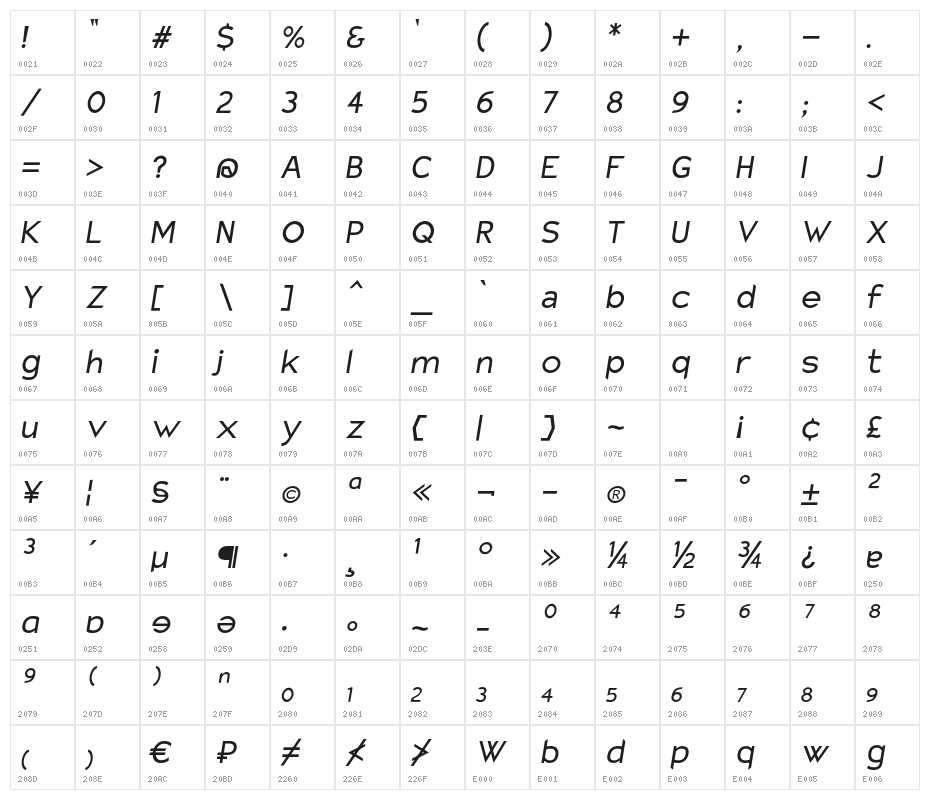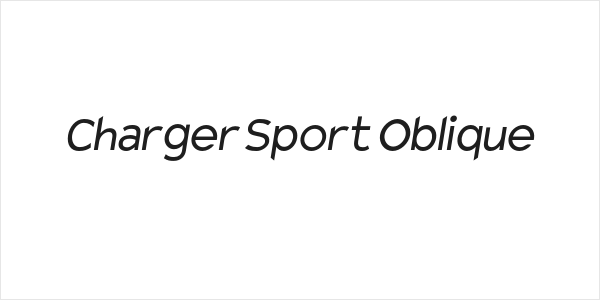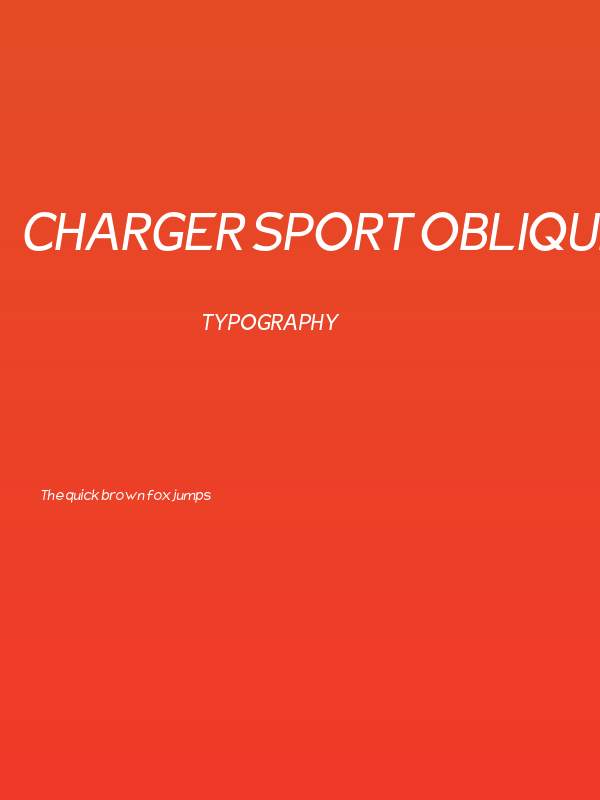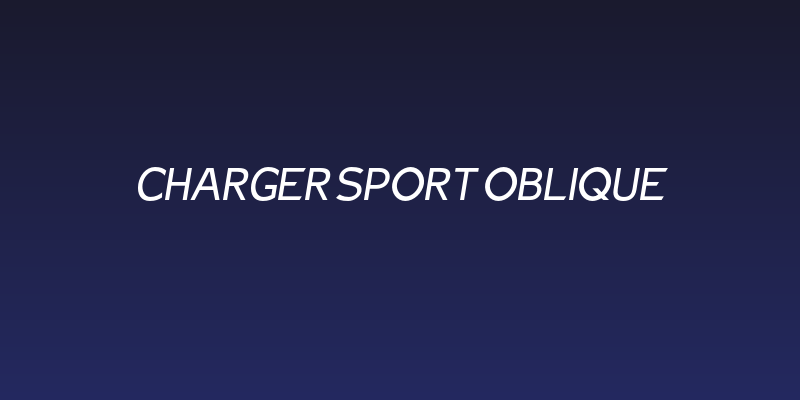
Charger Sport Oblique Font
Charger Sport Oblique Description
This font features a sleek, modern design with an oblique style that gives it a dynamic and sporty appearance. The characters are slightly slanted, adding a sense of motion and energy. The strokes are clean and uniform, with a medium contrast that maintains readability while emphasizing its contemporary aesthetic. The overall design is streamlined, making it suitable for projects that require a modern and energetic feel. The character spacing is normal, ensuring clarity and legibility across various applications.
| Use Case | Headlines, Logos, Advertising |
| Proposed Projects | Ideal for sports branding, dynamic advertising, modern web design, and energetic product packaging. |